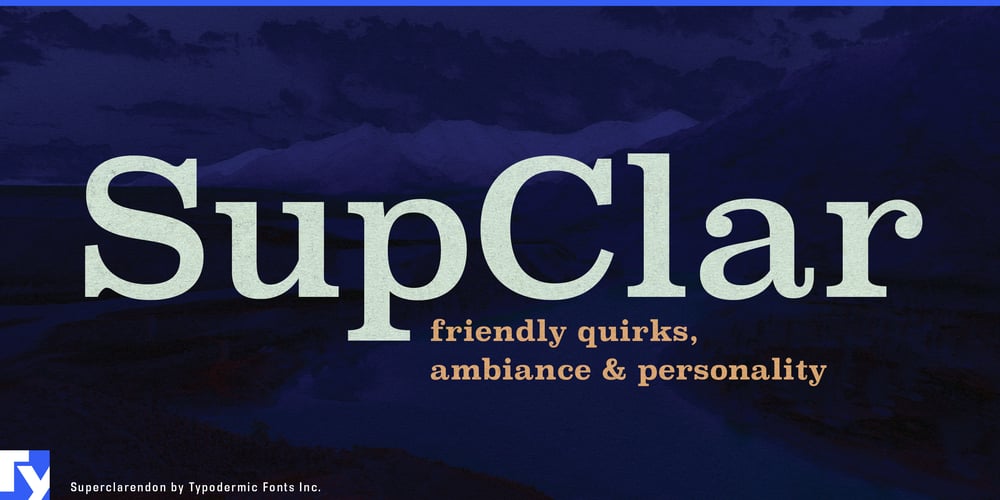
Superclarendon
Superclarendon font
Superclarendon Font Family was designed by Ray Larabie and published by Typodermic. Superclarendon contains 8 styles and family package options. Superclarendon isn’t just a typeface—it’s a typographic time machine with rocket boosters. This powerhouse font bridges the gap between 19th-century gravitas and 21st-century swagger, delivering a visual punch that resonates across centuries.Born from the DNA of classic Clarendon, Superclarendon flexes its muscular serifs with pride. These aren’t your grandmother’s delicate flourishes—they’re chunky, unapologetic statements that command attention like a town crier with a megaphone. The subtly squared letterforms stand as solid as ancient monoliths, yet their superelliptical curves whisper of modern aerodynamics. But don’t mistake Superclarendon for a mere historical reenactor. This font has been hitting the gym, bulking up its presence for the digital age. Its austere curls and sturdy terminals create a visual architecture so robust, it could support a skyscraper of ideas. Whether you’re crafting headlines that need to shout from the rooftops or body text that demands to be taken seriously, Superclarendon delivers with the precision of a well-oiled printing press and the impact of a precision-guided smart bomb.Versatility? Superclarendon’s got it in spades. With four weights, italics, and old-style numerals, it’s like having a typographic Swiss Army knife at your disposal. From light to bold, from upright to slanted, this font family’s got more range than a globetrotting polyglot. Speaking of language, Superclarendon is fluent in more tongues than a United Nations interpreter. Its extensive language support ensures your message resonates from the fjords of Norway to the sun-drenched plains of Africa, and nearly everywhere in between. It’s not just a font—it’s a cultural ambassador with a booming voice.Choose Superclarendon when your design needs to make a statement that can’t be ignored. It’s perfect for brands that want to exude authority without sacrificing modernity, for editorial layouts that demand both readability and personality, or for any project that needs to stand tall in a world of typographic whispers. So go ahead, give your designs the Superclarendon treatment. Watch as your message transforms from mere text into a resounding declaration, echoing through the corridors of time and leaping boldly into the future.